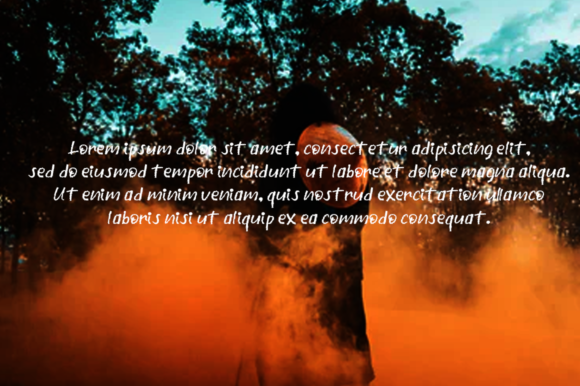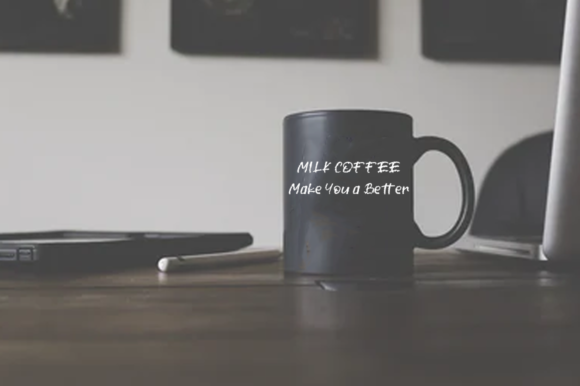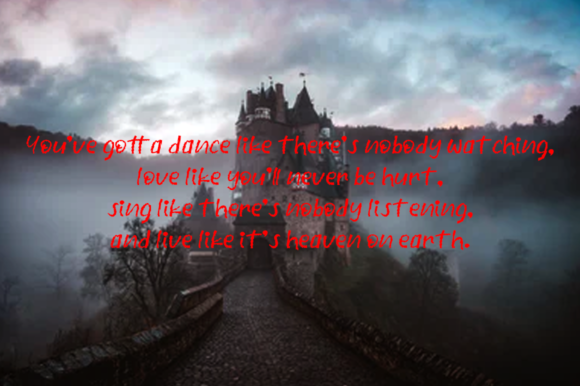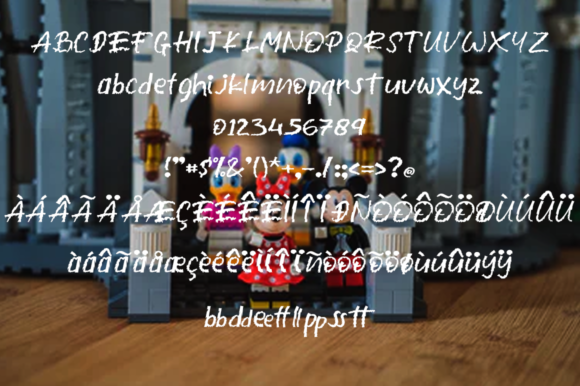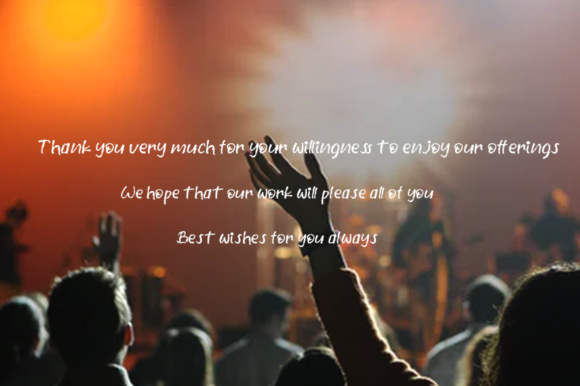
The Urban Edge of Gendoel Font: A Designer’s Delight
I still remember the design project that led me to discover Gendoel Font. I was working on a t-shirt design for a streetwear brand, and I needed a font that would give the design an urban, edgy vibe. After hours of scrolling through font libraries, I stumbled upon Gendoel Font, and it was love at first sight! The brushed, graffiti-styled letters seemed to scream “street art,” and I knew I had found the perfect fit.
An Honest Review of Gendoel Font
So, what makes Gendoel Font so special? Let’s dive into the good stuff and, of course, a few quirks I’ve noticed.
- ✨ Urban art vibe: Gendoel Font has an unmistakable street art feel that adds a cool, edgy touch to any design.
- ✅ Versatility: This font is perfect for a wide range of designs, from t-shirts and sportswear to logos, advertisements, and more.
- 💥 Eye-catching: The bold, brushed letters are sure to grab attention and make your design stand out.
While Gendoel Font is an amazing addition to any designer’s toolkit, there are a few things to keep in mind:
- 🤔 Legibility at small sizes: As with many display fonts, Gendoel can be a bit tricky to read at smaller sizes. Make sure to test it out at different sizes to ensure it works for your design.
- ⚠️ Limited formal settings: Due to its bold, urban style, Gendoel Font might not be the best fit for more formal designs, such as business cards or corporate branding.
The Backstory of Gendoel Font
Gendoel Font was inspired by the urban art scene, where street artists and graffiti writers express themselves through bold, colorful letters. The font’s creator aimed to capture the raw energy and edginess of this art form, making it perfect for designers who want to add an urban touch to their work.
Q: What type of designs is Gendoel Font best suited for?
A: Gendoel Font is perfect for designs like t-shirts, sportswear, logos, advertisements, clothing, and more.
Q: Is Gendoel Font available in different styles or weights?
A: Currently, Gendoel Font is available in a single style, but its versatility and range of OpenType features make it a great choice for various designs.